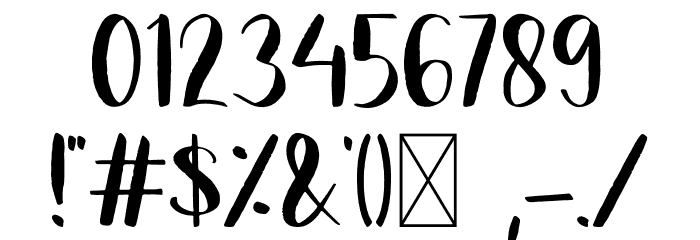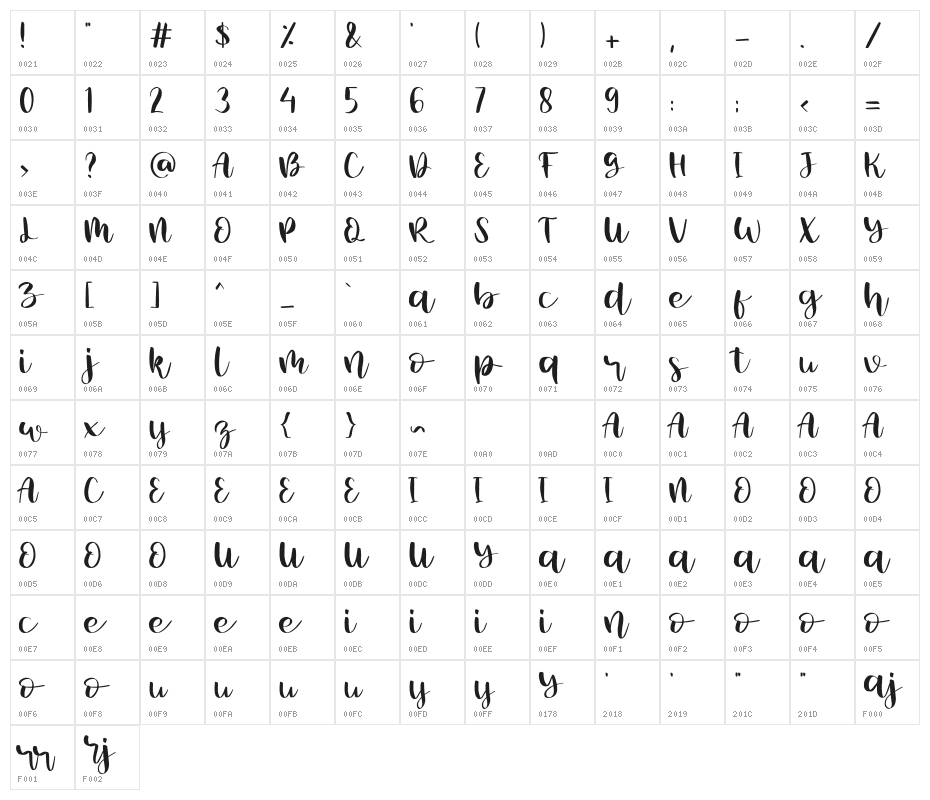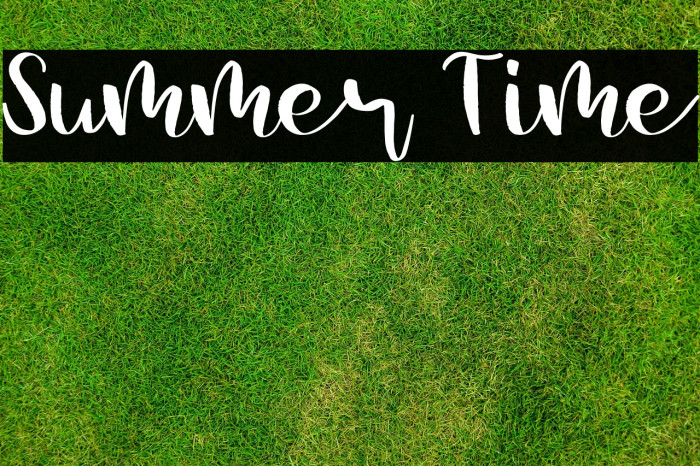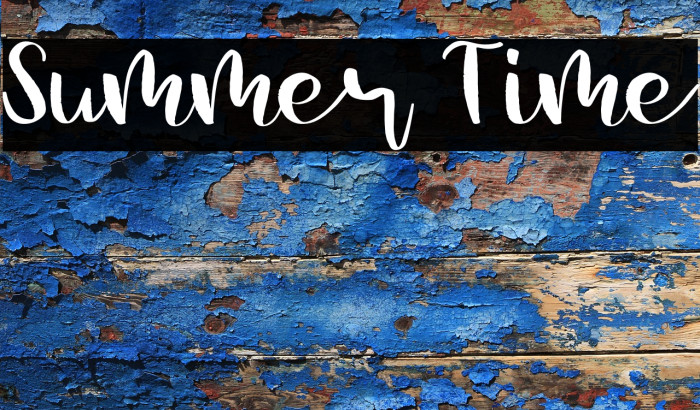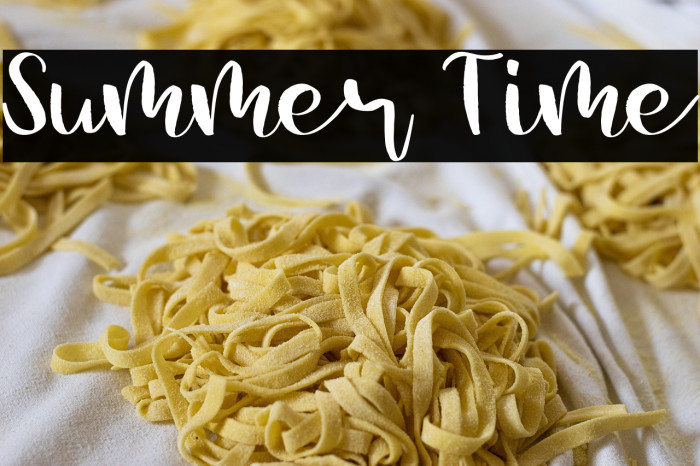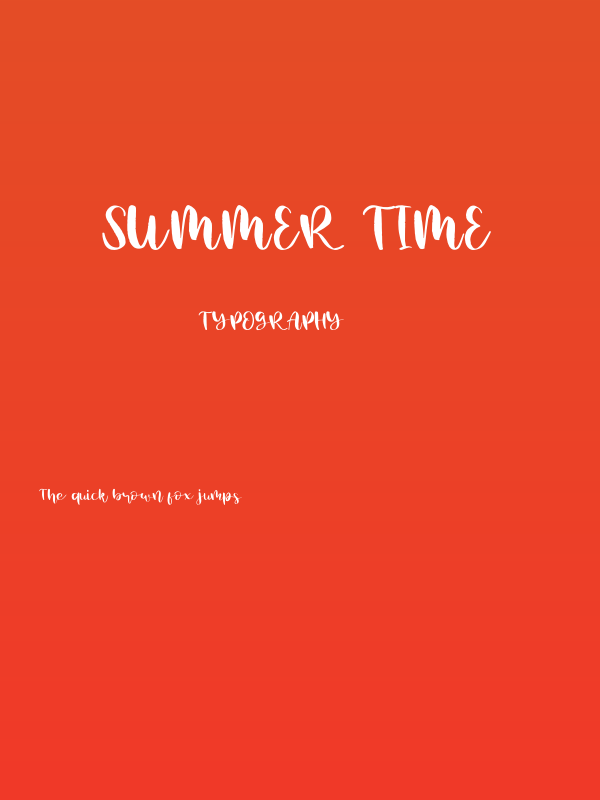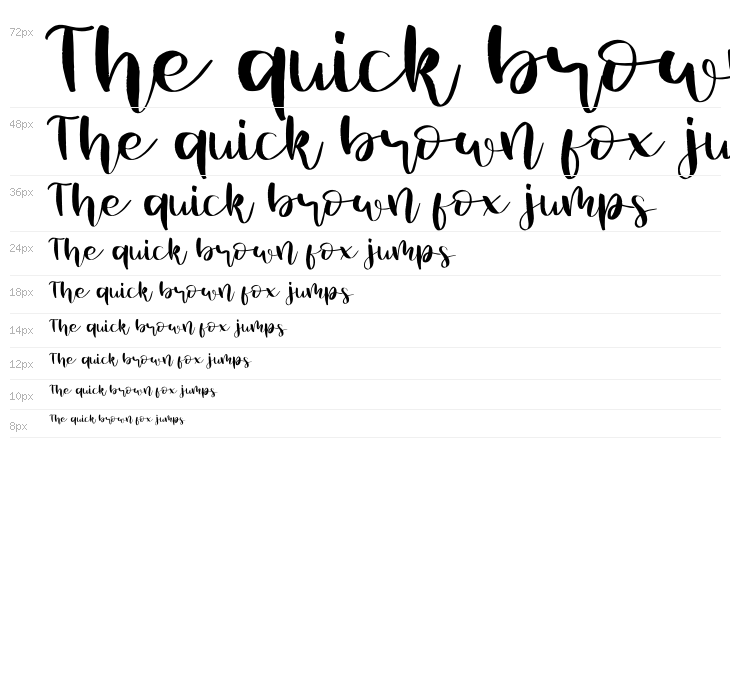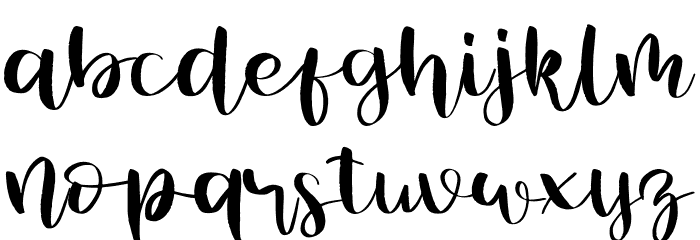
Summer Time Font
Summer Time Description
This font features a lively and expressive script style, characterized by its fluid, hand-drawn appearance. The letters are bold and have a playful, casual feel, with varying stroke widths that add a dynamic quality to the text. The uppercase letters are slightly more structured, while the lowercase letters exhibit a more freeform, whimsical nature. The numerals and special characters maintain the same energetic style, ensuring consistency across all text elements. This font's overall aesthetic is both modern and approachable, making it suitable for a variety of creative applications.